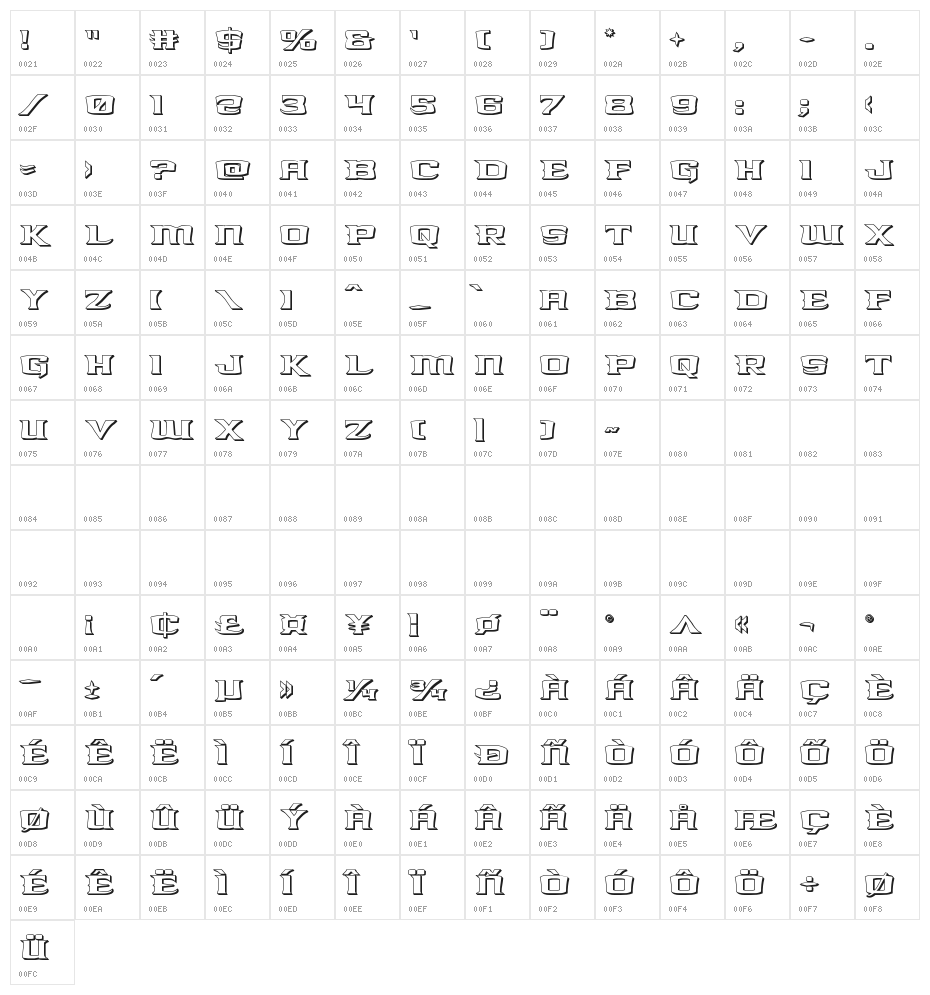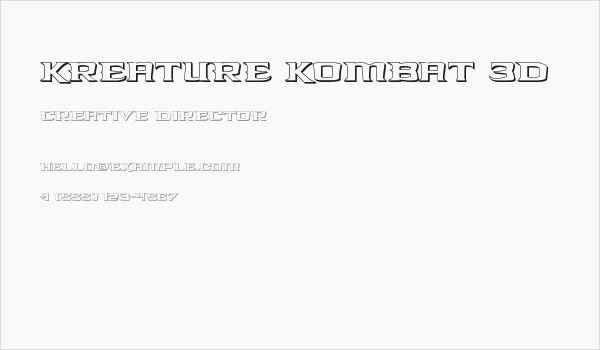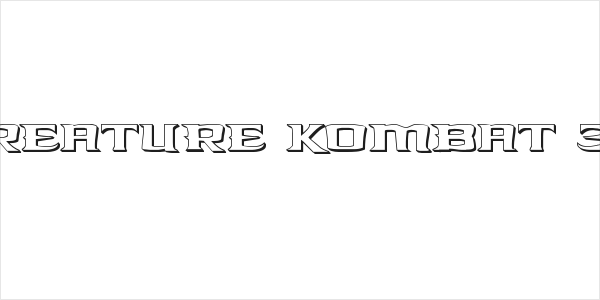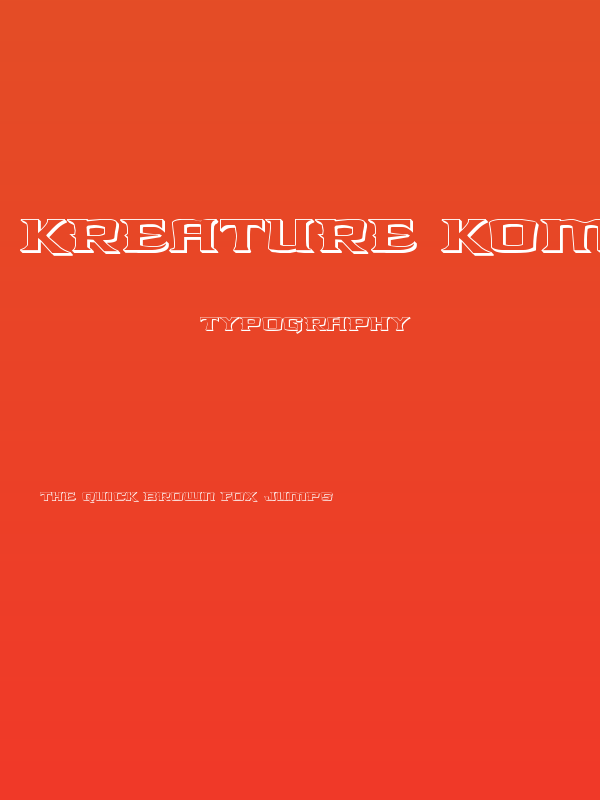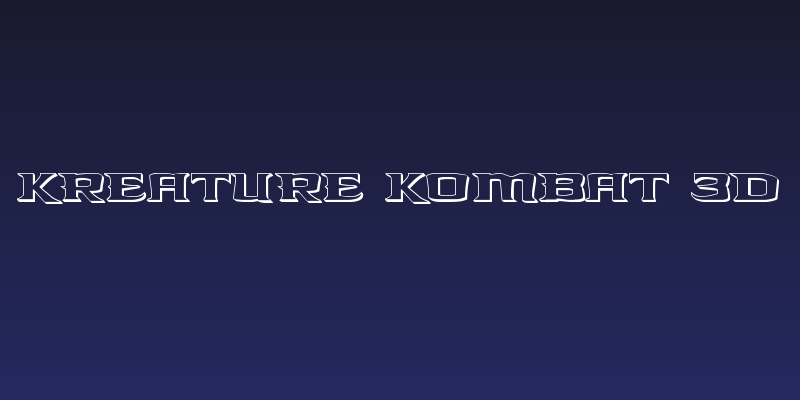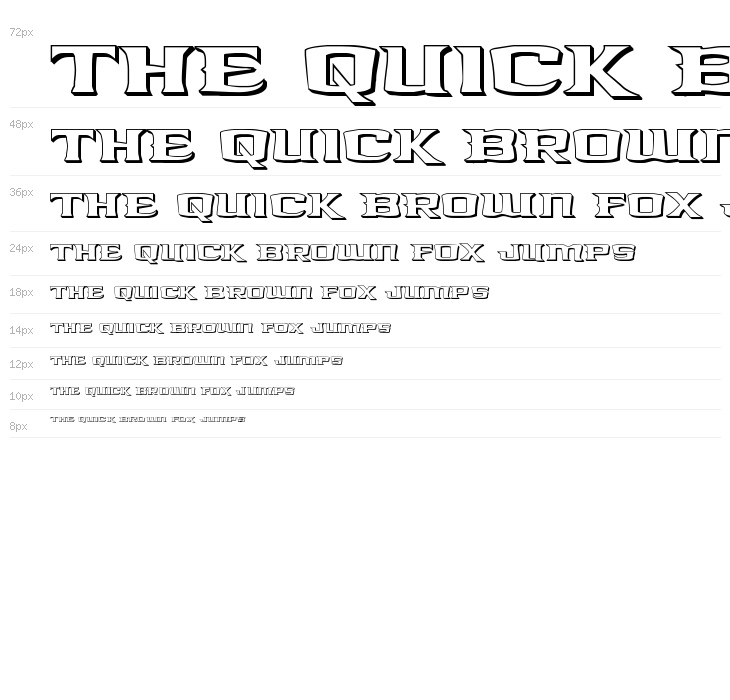
Kreature Kombat 3D Font
Kreature Kombat 3D Description
This font features a bold, three-dimensional design with a strong, angular appearance. The characters are outlined with a shadow effect, giving them a dynamic and impactful look. The uppercase and lowercase letters maintain a consistent style, with sharp edges and a futuristic feel. The numbers and special characters are designed to match the boldness and geometric style of the letters, making the font suitable for attention-grabbing designs. Its unique style is reminiscent of video game or sci-fi themes, making it ideal for projects that require a modern and edgy aesthetic.
| Proposed Projects | Ideal for video game titles, sci-fi movie posters, and edgy branding projects. |